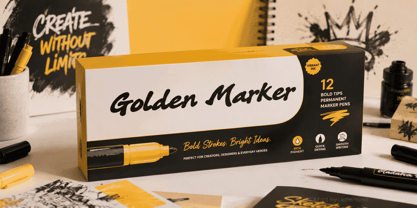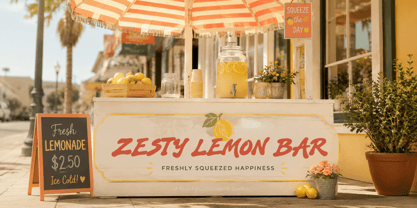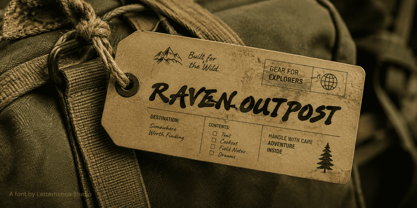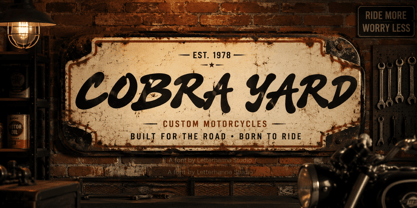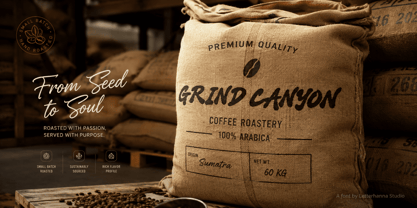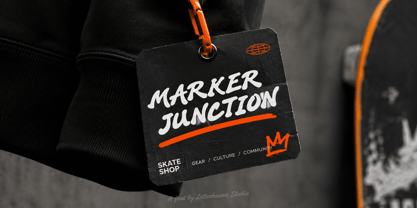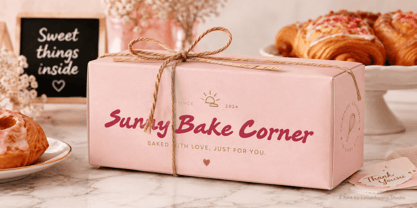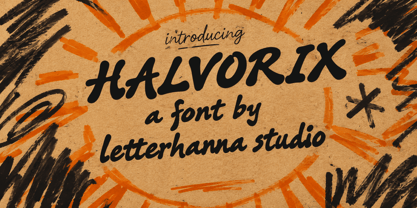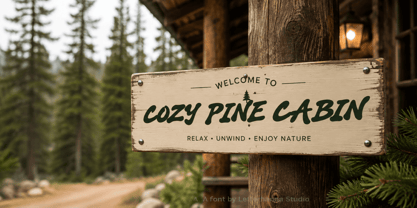
Halvorix
von Letterhanna Studio
Die Schriftfamilie Halvorix wurde von Rinaldo Hasibuan entworfen und von Letterhanna Studio veröffentlicht. Halvorix enthält 1 Stile. Mehr über diese Familie
There's a specific kind of frustration that hits when you're three hours into a font search and still haven't found "the one." You know the feeling — every option is either too safe or too silly, and your brand still doesn't sound like itself.
Halvorix showed up to solve that exact problem.
At first glance, it looks like a simple hand-marker font. But look closer at the lowercase letters — they're rounded, loose, and drawn with the kind of confidence that only comes from moving fast and not overthinking it. Nothing here feels copy-pasted from a template.
Then the uppercase set changes the whole conversation. Letters like S, R, and Y swing into small swash flourishes, almost like a signature. That single detail is what turns a playful font into something that actually reads as branded, not generic.
Here's where most people get stuck. They assume "playful" and "professional" can't coexist — that a fun typeface will always feel a little cheap. Halvorix quietly breaks that rule. It's bold enough to headline a poster, and warm enough to sit on a birthday box.
That's the part that tends to surprise people the most: one font, two completely different jobs. As a kids font, it feels friendly without slipping into babyish territory — perfect for toy packaging, birthday brands, or a children's product line that still wants to look intentional.
Flip the context, and the same thick strokes turn into a bold display powerhouse for streetwear, snack packaging, or a youth-driven logo that needs to shout a little.
As a logo font, Halvorix earns its keep fast. The swash details give wordmarks personality straight out of the box — no extra hand-lettering required, no hours spent tweaking kerning to fake character that isn't there.
If you've ever built a brand that felt technically fine but emotionally flat, this is usually why: the typography wasn't doing any of the talking. Letters carry tone whether you plan for it or not.
Halvorix hands you that tone immediately — loud when the moment calls for it, warm when it doesn't, and never stiff in between.
Designer: Rinaldo Hasibuan
Foundry: Letterhanna Studio